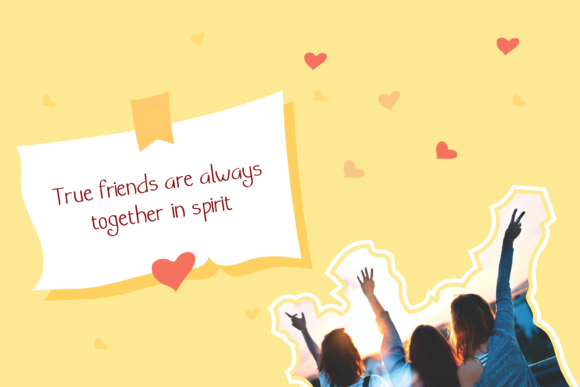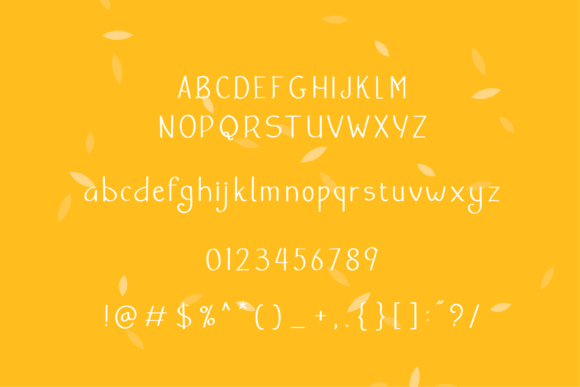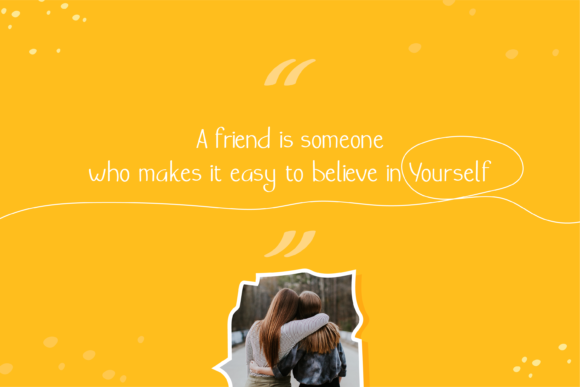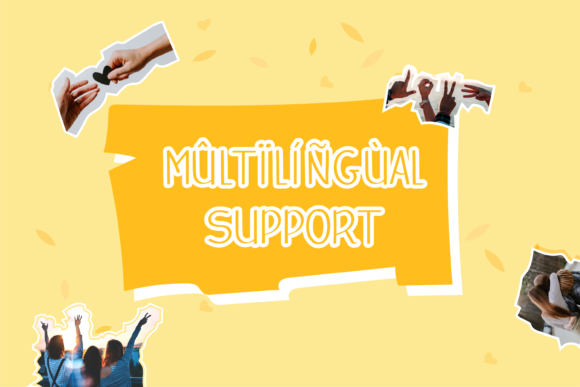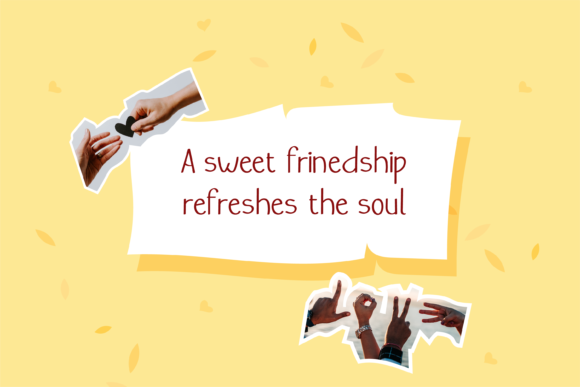
Introducing Besties Forever Font: The Ultimate Display Font for Creative Projects
Are you a designer, crafter, or DIY enthusiast looking for a font that can elevate your creative projects to the next level? Look no further than Besties Forever Font, a cool, simple, and casual display font that’s perfect for a variety of applications. In this article, we’ll explore the features and benefits of Besties Forever Font, and show you how it can help you turn your creative ideas into stunning works of art.
What is Besties Forever Font?
Besties Forever Font is a display font designed to make a statement. Its clean and simple design makes it perfect for use in a variety of creative projects, from social media graphics and Instagram posts to calligraphy scripts and DIY crafts. The font’s casual vibe makes it ideal for adding a personal touch to your designs, while its versatility ensures that it can be used in a wide range of contexts.
Key Features of Besties Forever Font
- Cool and Casual Design: Besties Forever Font has a relaxed, laid-back feel that’s perfect for creating designs that are fun, youthful, and energetic.
- Simple and Easy to Read: The font’s clean lines and simple design make it easy to read, even at small sizes.
- Versatile: Besties Forever Font can be used in a wide range of creative projects, from digital graphics to handmade crafts.
- Perfect for Instagram and Social Media: The font’s stylish and modern design makes it perfect for creating eye-catching Instagram posts and social media graphics.
How to Use Besties Forever Font in Your Creative Projects
Besties Forever Font is a versatile font that can be used in a wide range of creative projects. Here are a few ideas to get you started:
- Instagram Posts and Stories: Use Besties Forever Font to add a personal touch to your Instagram posts and stories. Create eye-catching graphics, quotes, and captions that will engage your followers and help you build your brand.
- Calligraphy Scripts: Besties Forever Font is perfect for creating beautiful calligraphy scripts for DIY projects, such as handmade cards, gift tags, and wall art.
- DIY Crafts: Use Besties Forever Font to add a personal touch to your DIY crafts, such as scrapbooking, journaling, and paper crafting.
- Graphic Design Projects: Besties Forever Font can be used in a wide range of graphic design projects, from brochures and flyers to posters and banners.
Benefits of Using Besties Forever Font
There are many benefits to using Besties Forever Font in your creative projects. Here are a few:
- Easily Readable: The font’s simple design makes it easy to read, even at small sizes.
- Highly Versatile: Besties Forever Font can be used in a wide range of creative projects, from digital graphics to handmade crafts.
- Time-Saving: The font’s clean and simple design makes it easy to use and saves you time when working on creative projects.
- Professional-Looking Results: Besties Forever Font is designed to help you create professional-looking results, even if you’re not a professional designer.
Besties Forever Font is a cool, simple, and casual display font that’s perfect for a wide range of creative projects. Its versatile design, easy readability, and professional-looking results make it a must-have font for designers, crafters, and DIY enthusiasts. Whether you’re looking for fonts for Instagram or calligraphy scripts for DIY projects, Besties Forever Font is the perfect choice. So why wait? Download Besties Forever Font today and start turning your creative ideas into stunning works of art!